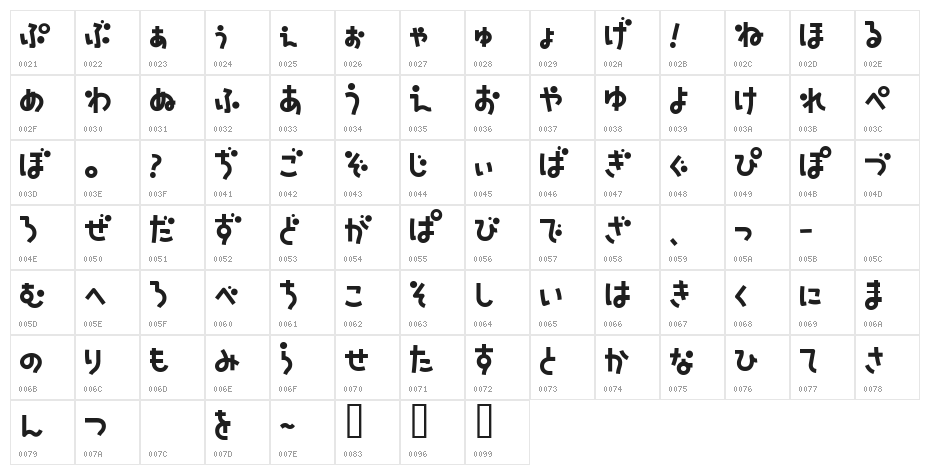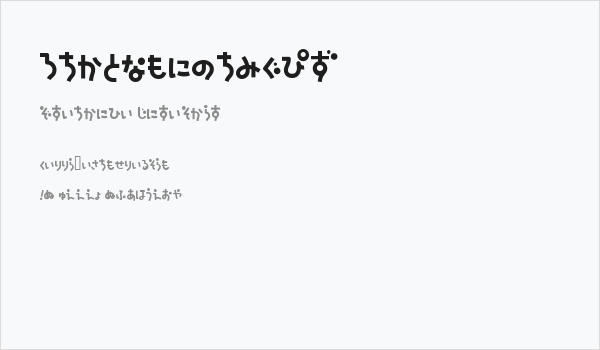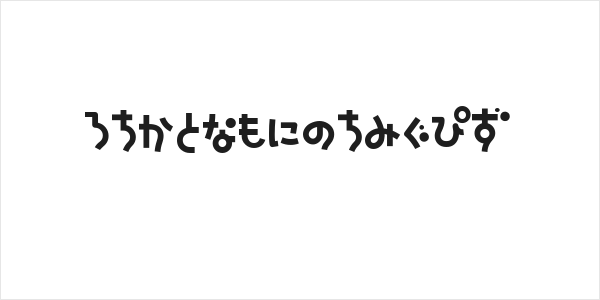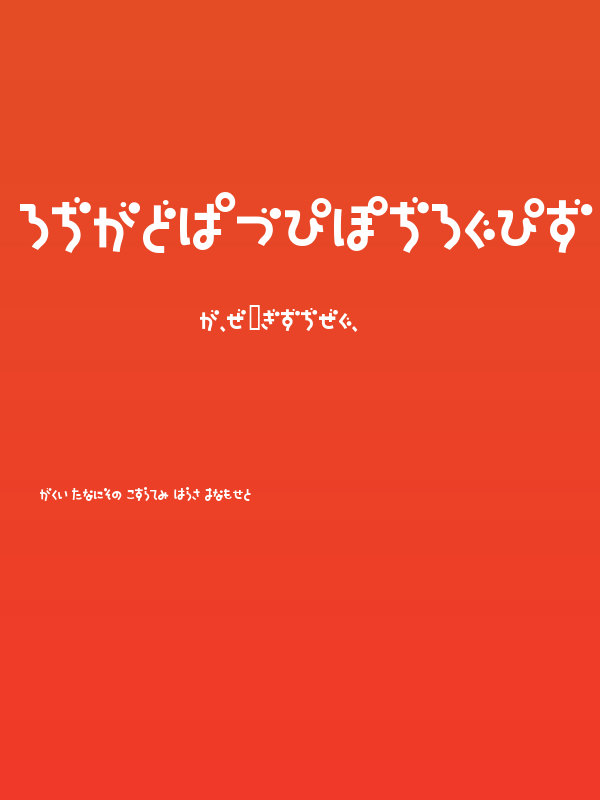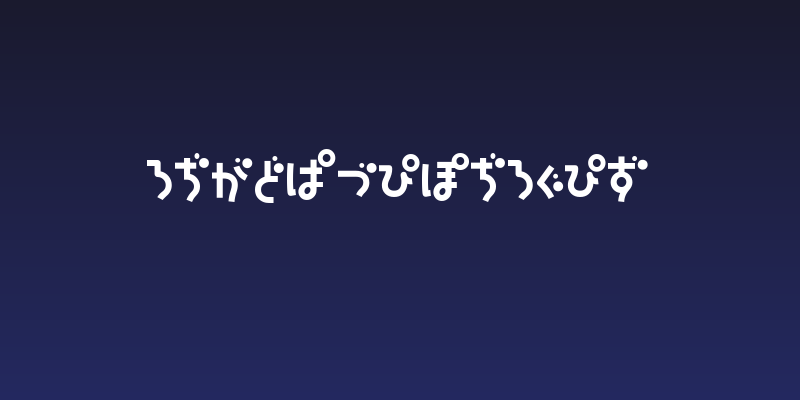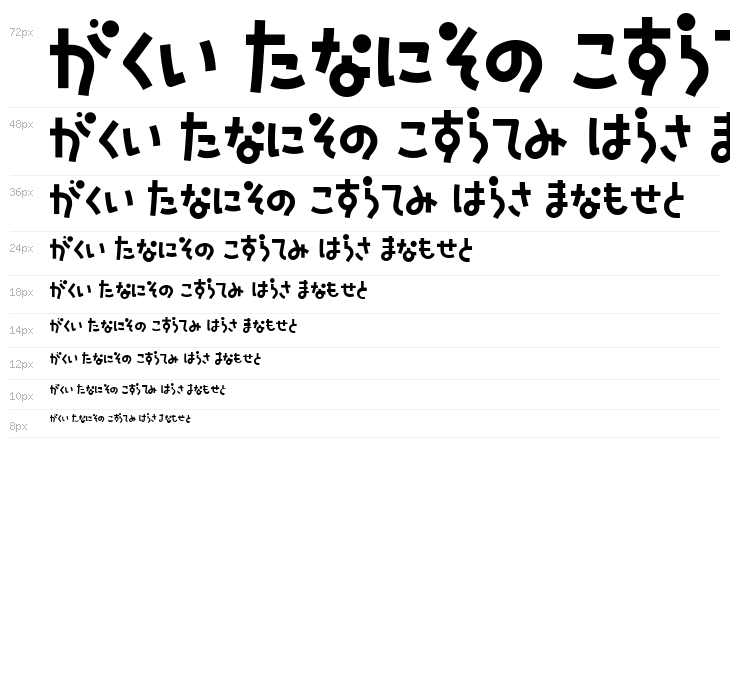
NatsumikanHIR Font
NatsumikanHIR Description
This font features a playful and bold style with rounded edges and a slightly whimsical appearance. The characters are well-defined with a consistent stroke width, giving it a uniform look. The font maintains a balance between readability and decorative flair, making it suitable for various creative applications. Its boldness and rounded forms convey a sense of friendliness and approachability, ideal for projects that aim to capture attention while maintaining a light-hearted tone.
| Proposed Projects | Ideal for children's books, playful branding, posters, and creative advertisements. |